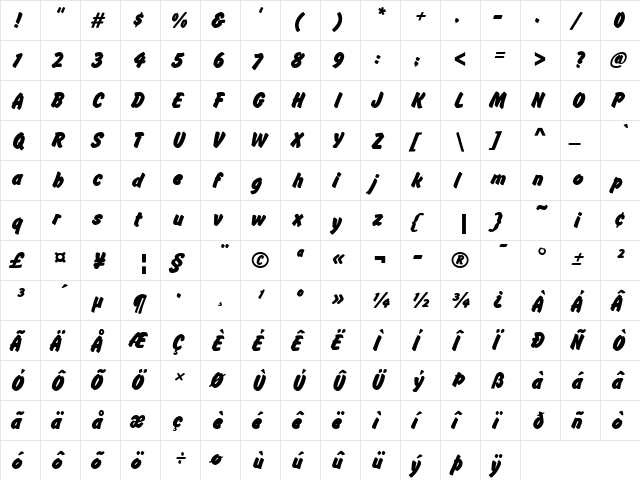
Flash D Regular Font Preview
Flash D Regular
Flash D Regular Font Details
Design Context for Flash D Typeface
Flash D is a composed and adaptable typeface that performs quietly and consistently across a wide range of design contexts.